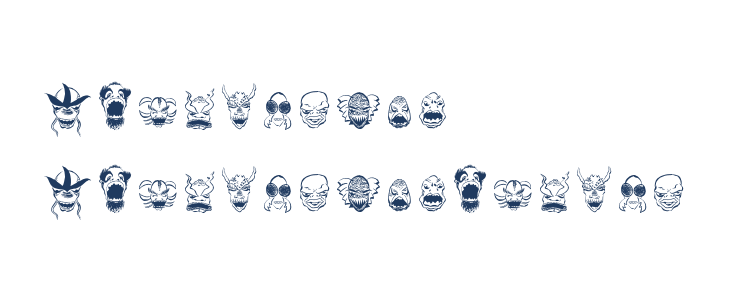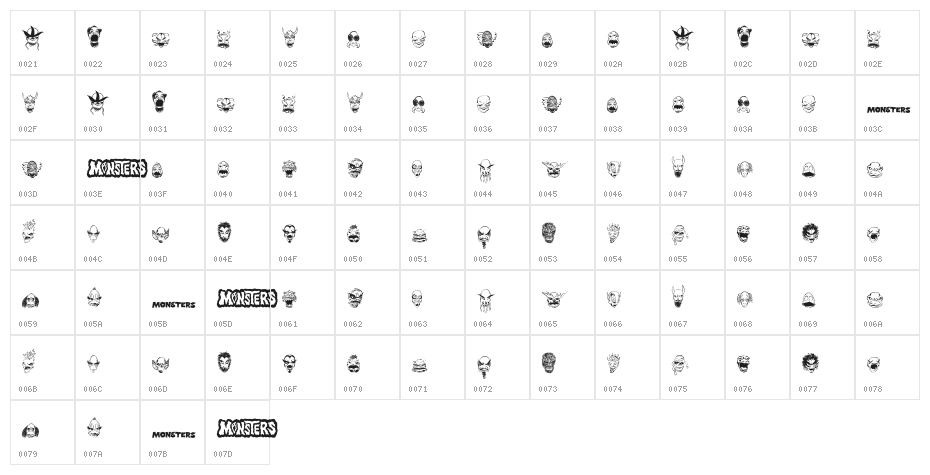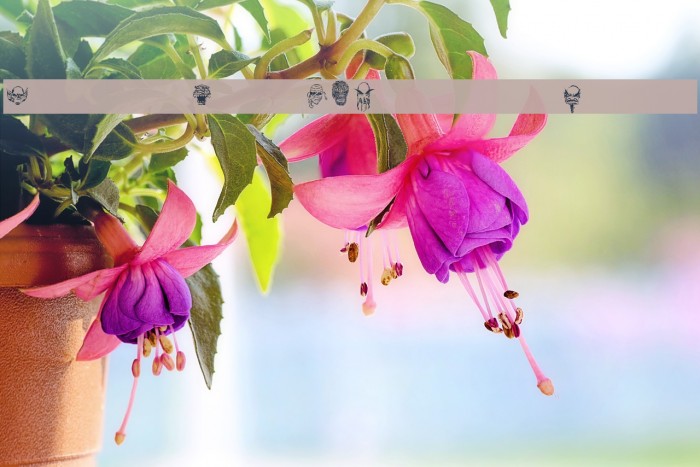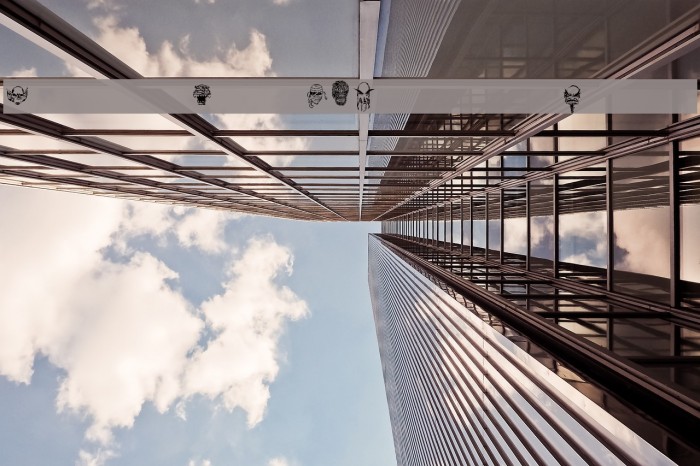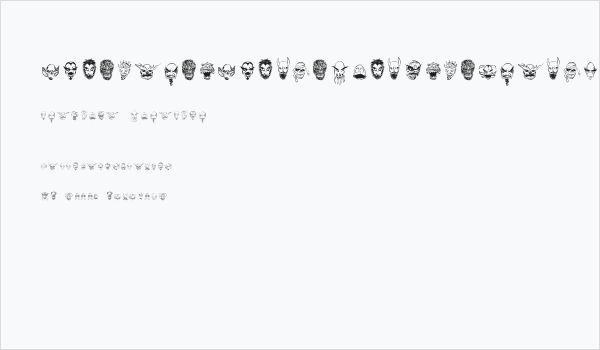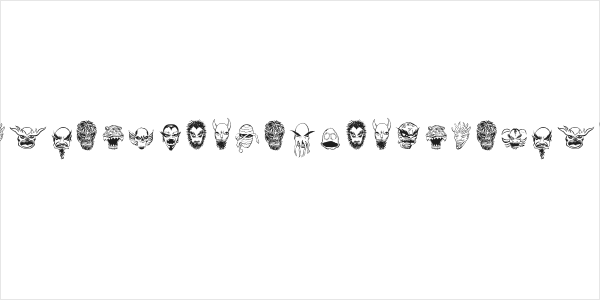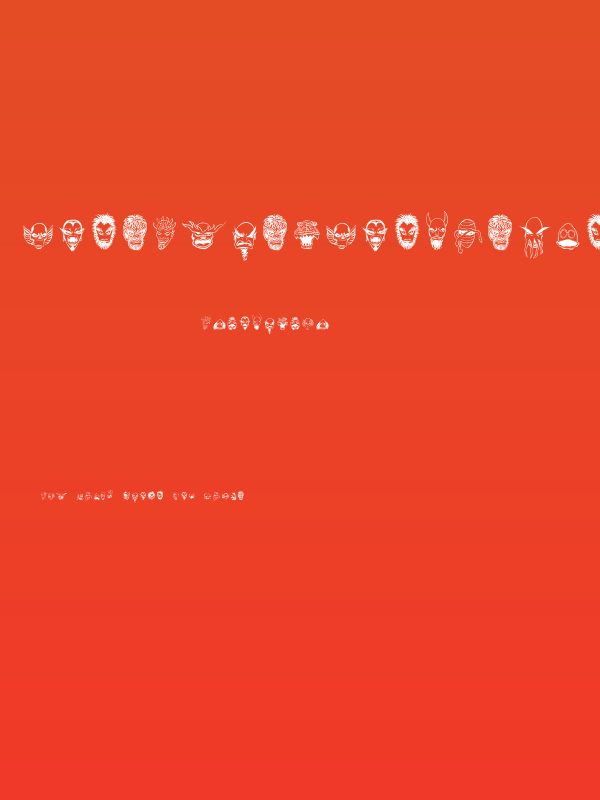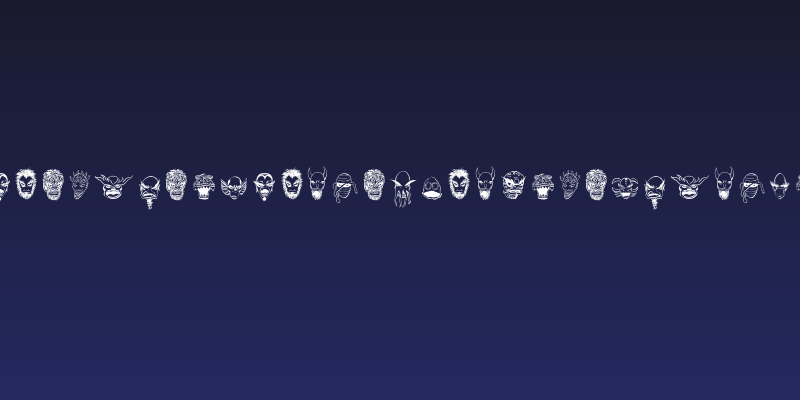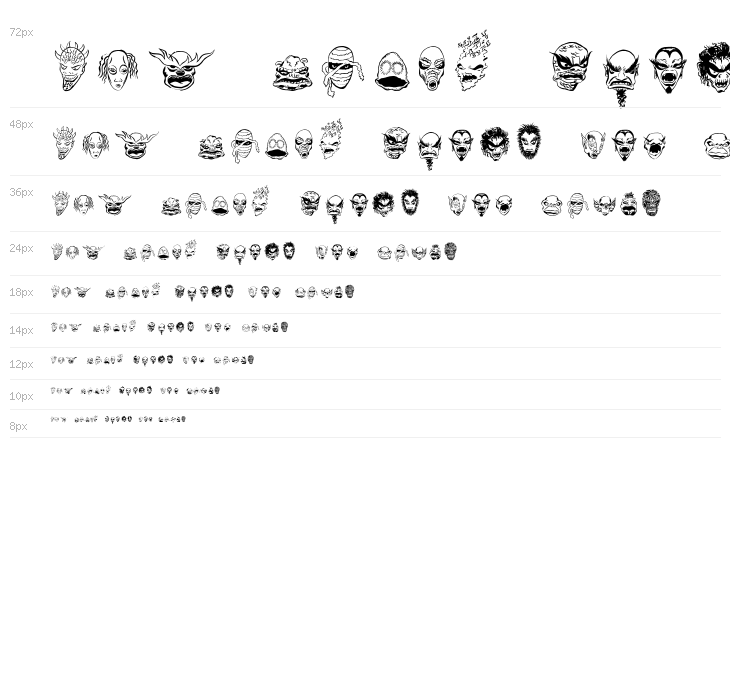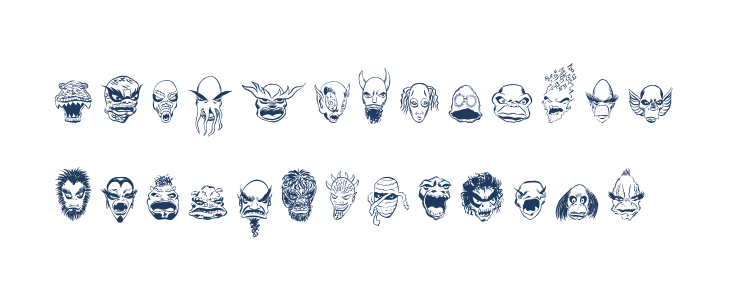
MonstersAmongUSDingbats-Regular Font
MonstersAmongUSDingbats-Regular Description
This collection features a series of unique and imaginative monster-themed dingbats. Each character is intricately designed, showcasing a variety of monstrous faces with distinct expressions and features. The designs range from classic horror motifs to more whimsical and fantastical creatures, providing a wide array of visual styles. These dingbats are perfect for adding a touch of the macabre or the fantastical to any project. The level of detail in each character is impressive, with careful attention to line work and shading, making them stand out as individual pieces of art.
| Use Case | Logos, Posters, Themed Invitations |
| Proposed Projects | Ideal for Halloween-themed designs, horror movie posters, graphic novels, or any project requiring a spooky or fantastical touch. |